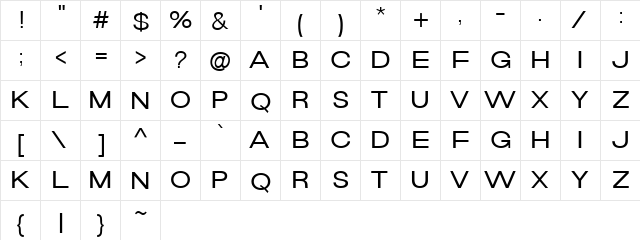
Naville DEMO Regular
| Designer | Egi Ahmad Mufid |
Design Context for Naville DEMO Typeface
Naville DEMO is a composed and adaptable typeface that performs quietly and consistently across a wide range of design contexts.
Pro Tip: Pair Naville DEMO with a font of contrasting weight or personality to build a more expressive typographic hierarchy.